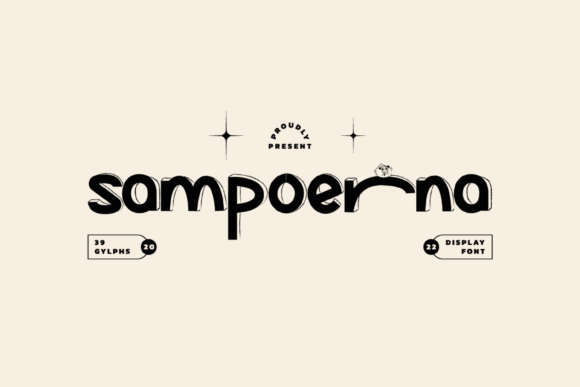
Enter the World of Delightful Displays with Sampoerna Font: Unleash Your Creativity and Make a Statement!
Escape the ordinary and embrace the extraordinary with Sampoerna Font, a visual masterpiece crafted to bring joy, energy, and individuality to your creative pursuits. Immerse yourself in a realm of captivating characters that dance and play across your screen, leaving a trail of smiles and wonder in their wake. Whether you're designing cartoon-themed masterpieces, crafting enchanting children's games, or simply seeking a delightfully unique touch for your next project, Sampoerna Font is your perfect companion.
Step into a Realm of Whimsy and Charm: Sampoerna Font's playful and lighthearted nature is guaranteed to inject an irresistible charm into your designs. Picture your creations coming alive with a cast of cheerful characters, each letter a tiny work of art that sparks joy and captures hearts. Let your imagination run wild as you weave tales of adventure, friendship, and pure delight.
Ignite Your Creativity with Limitless Possibilities: Unlock the full potential of your creative vision with Sampoerna Font's remarkable versatility. Its playful personality effortlessly adapts to a myriad of design projects, from eye-catching logos and branding elements to captivating posters and flyers. Unleash your inner artist and explore the endless possibilities that await you.
Make Your Mark in the World of Design: Sampoerna Font is more than just a font; it's a statement piece that commands attention and leaves a lasting impression. Its delightful curves and charming details turn every word into a visual feast, ensuring that your designs stand out from the crowd. Whether you're creating digital masterpieces or tangible works of art, Sampoerna Font is the key to unlocking your creative potential and leaving an indelible mark on the world of design.